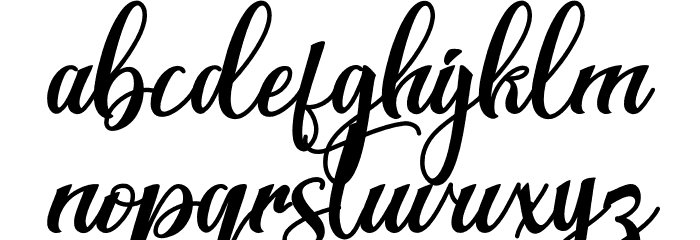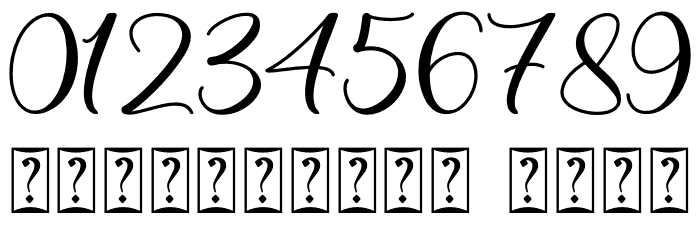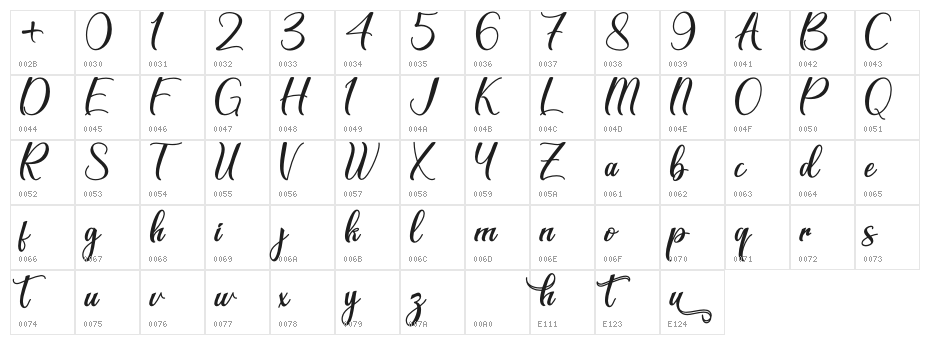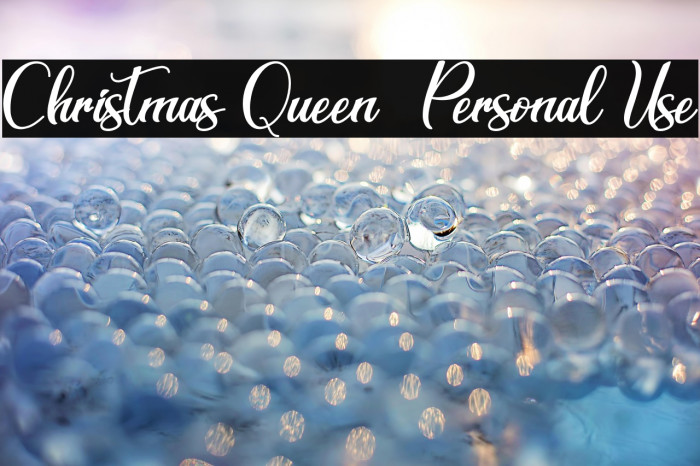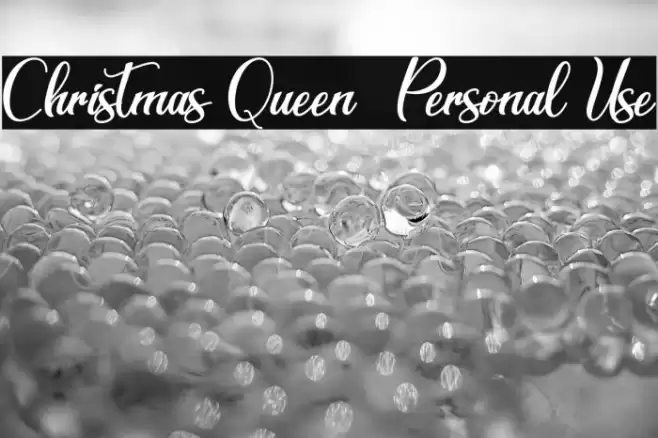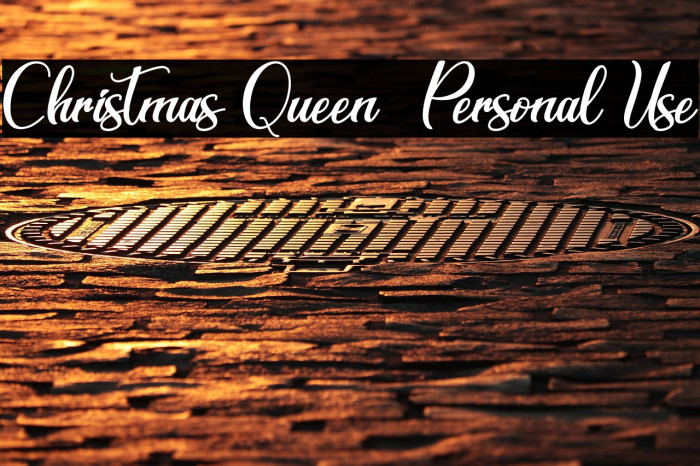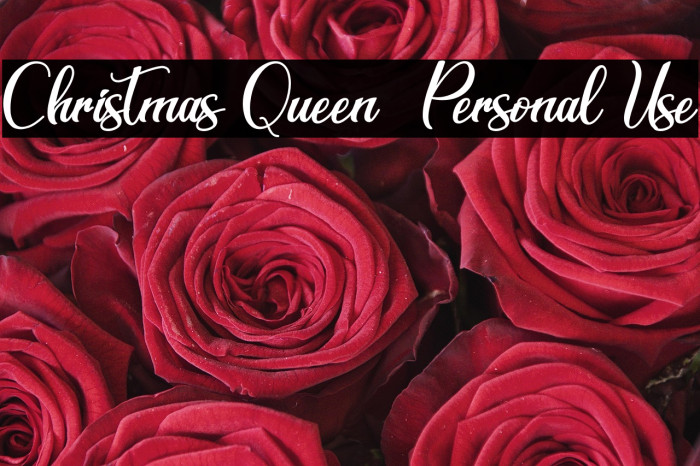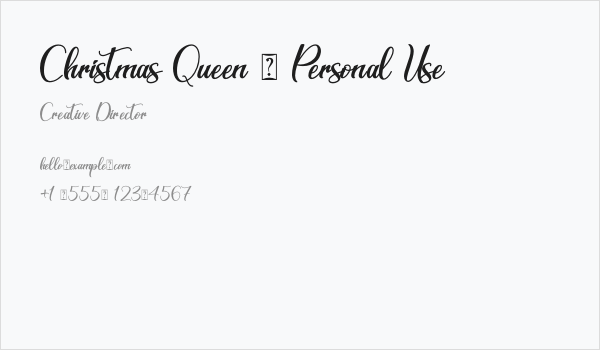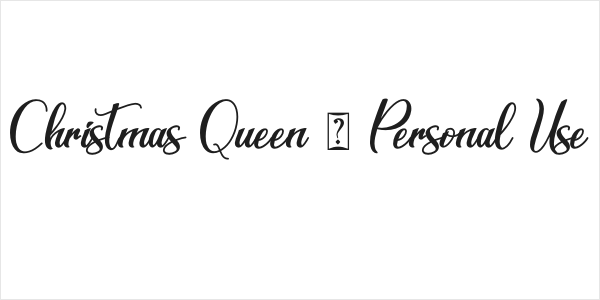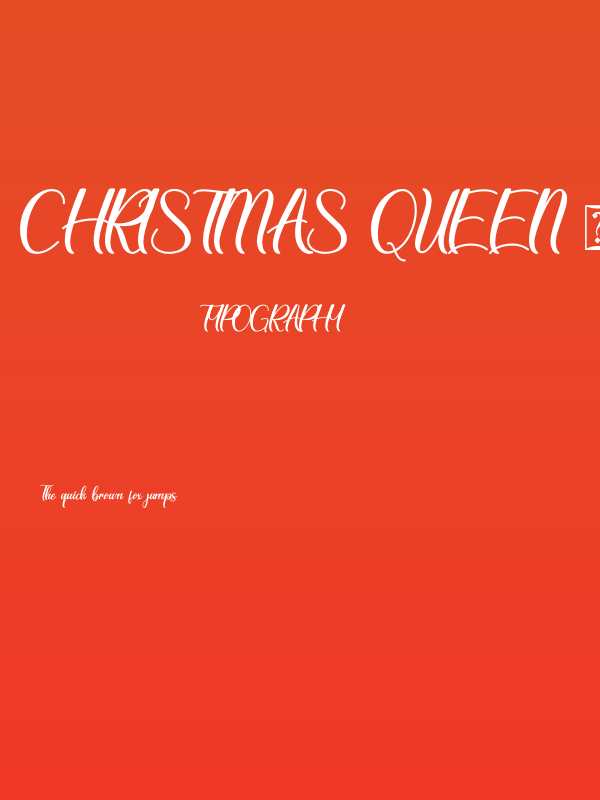
Christmas Queen - Personal Use Font
This font features an elegant and flowing script style, characterized by its smooth, cursive strokes and graceful curves. The uppercase letters are bold and sweeping, with a sense of movement that adds a dynamic quality to the text. The lowercase letters maintain a consistent flow, with intricate loops and flourishes that enhance its decorative appeal. The numerals are stylish and maintain the same fluidity, making them harmonious with the alphabet. This font is perfect for adding a touch of sophistication and elegance to any design project, making it ideal for festive occasions or formal invitations.
An elegant, flowing script font with dynamic curves and decorative flourishes.
- Proposed Projects: Ideal for wedding invitations, holiday cards, branding, and elegant event signage.
- Category: Script
- Use Case: Headlines, Logos, Invitations